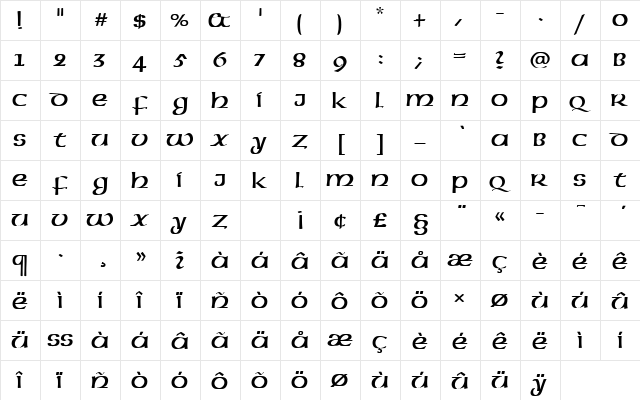
AmericanUncDRo1 Regular Font Preview
AmericanUncDRo1 Regular
AmericanUncDRo1 Regular Font Details
Design Context for AmericanUncDRo1 Typeface
AmericanUncDRo1 is a composed and adaptable typeface that performs quietly and consistently across a wide range of design contexts.